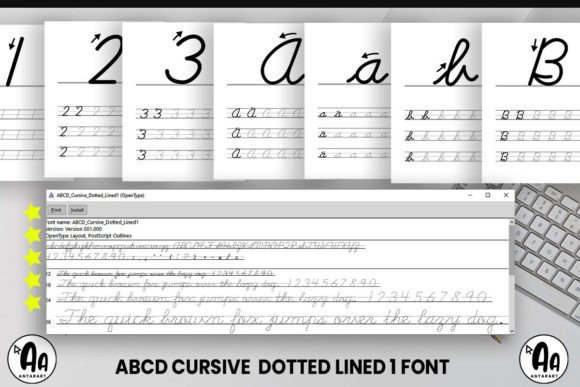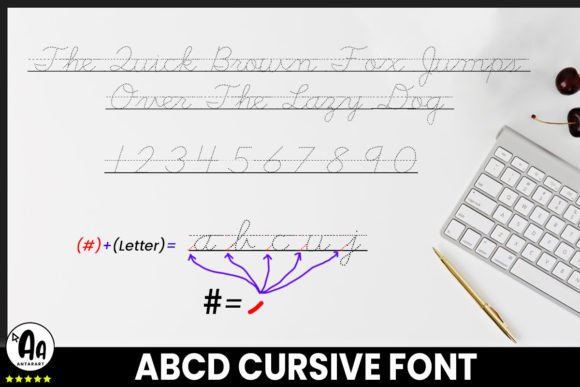
Unlocking the Power of Abcd Cursive Dotted Lined1 Font for Engaging Handwriting Practice
The Abcd Cursive Dotted Lined1 Font, also known as the Abcd Cursive Dotted Lined1 (Ruled) Font, is a game-changer for anyone looking to create engaging and interactive handwriting practice worksheets. This versatile handwritten font is designed to help learners of all ages master cursive handwriting with ease and enjoyment. In this article, we’ll explore the benefits and features of this remarkable font, and how it can be used by designers, crafters, and educators to create a wide range of educational resources.
The Benefits of Using Abcd Cursive Dotted Lined1 Font
One of the primary advantages of the Abcd Cursive Dotted Lined1 Font is its ability to make handwriting practice fun and interactive. The font’s unique design features dotted lines and a ruled format, providing learners with a clear guide for writing cursive letters and words. This helps to improve handwriting skills, build confidence, and develop muscle memory.
Another significant benefit of this font is its versatility. The Abcd Cursive Dotted Lined1 Font can be used with any software, making it easy to create a wide range of worksheets, including handwriting practice sheets, letter formation charts, and even decorative borders. This flexibility makes it an ideal resource for designers, crafters, and educators who want to create customized educational materials.
Key Features of Abcd Cursive Dotted Lined1 Font
The Abcd Cursive Dotted Lined1 Font boasts several key features that make it an excellent choice for handwriting practice:
• Dotted lines: The font’s dotted lines provide a clear guide for learners to write cursive letters and words, helping to improve handwriting accuracy and consistency.
• Ruled format: The ruled format of the font helps learners to develop their handwriting skills in a more structured and organized way.
• Handwritten style: The font’s handwritten style makes it perfect for creating worksheets that mimic real handwriting, making practice more engaging and enjoyable.
Using Abcd Cursive Dotted Lined1 Font for Educational Resources
The Abcd Cursive Dotted Lined1 Font is an excellent resource for educators and designers who want to create engaging and interactive educational materials. Here are a few ideas for using this font:
• Handwriting practice worksheets: Create customized handwriting practice worksheets for learners of all ages, using the font’s dotted lines and ruled format to guide learners.
• Letter formation charts: Use the font to create letter formation charts that showcase cursive letter strokes and connections.
• Decorative borders: Use the font to create decorative borders and headings for worksheets, making them more visually appealing and engaging.
• Activity sheets: Create activity sheets that combine handwriting practice with other skills, such as math, reading, or science.
For designers and crafters, the Abcd Cursive Dotted Lined1 Font offers a wide range of creative possibilities. Here are a few tips for using this font:
• Combine with other fonts: Experiment with combining the Abcd Cursive Dotted Lined1 Font with other fonts to create unique and visually appealing designs.
• Customize and adapt: Don’t be afraid to customize and adapt the font to suit your needs and creative vision.
Font Name Abcd Cursive Dotted Lined1 Font
Author AntarArt
The Abcd Cursive Dotted Lined1 Font is a powerful tool for anyone looking to create engaging and interactive handwriting practice worksheets. Its unique design features, versatility, and compatibility make it an ideal resource for designers, crafters, and educators. Whether you’re looking to create customized educational materials or simply want to improve your handwriting skills, this font is definitely worth exploring.